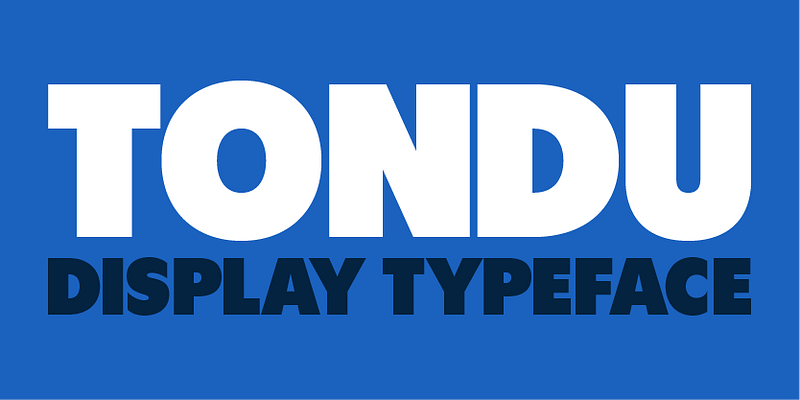
Tondu Font Free Download is a bold and playful display typeface that captures the spirit of classic retro design. With its thick letterforms, rounded edges, and fun personality, this font is perfect for vintage posters, branding, children’s books, logos, and packaging that needs a cheerful, standout look.
Designed to grab attention, Tondu works best in larger sizes where its quirky charm can truly shine. It’s compatible with design tools like Adobe Illustrator, Photoshop, and Canva, allowing for easy use in both digital and print formats.